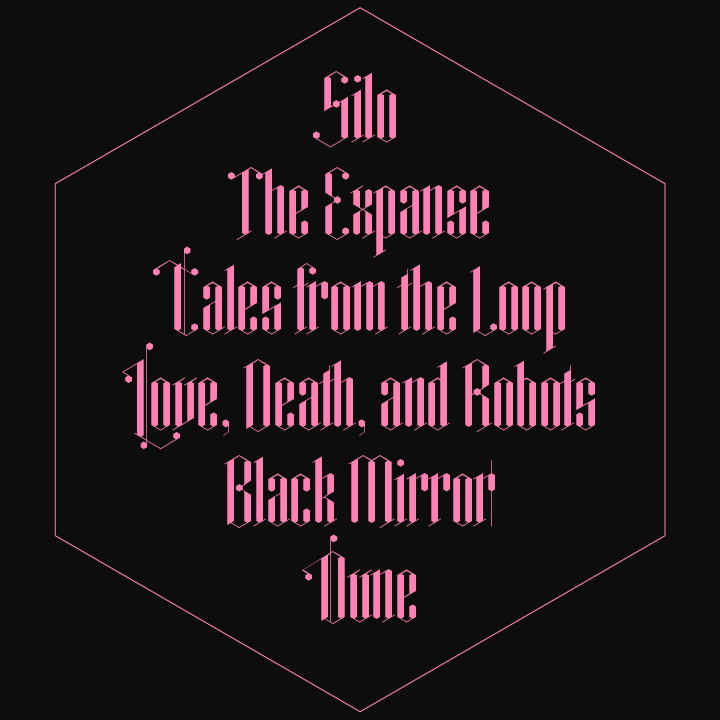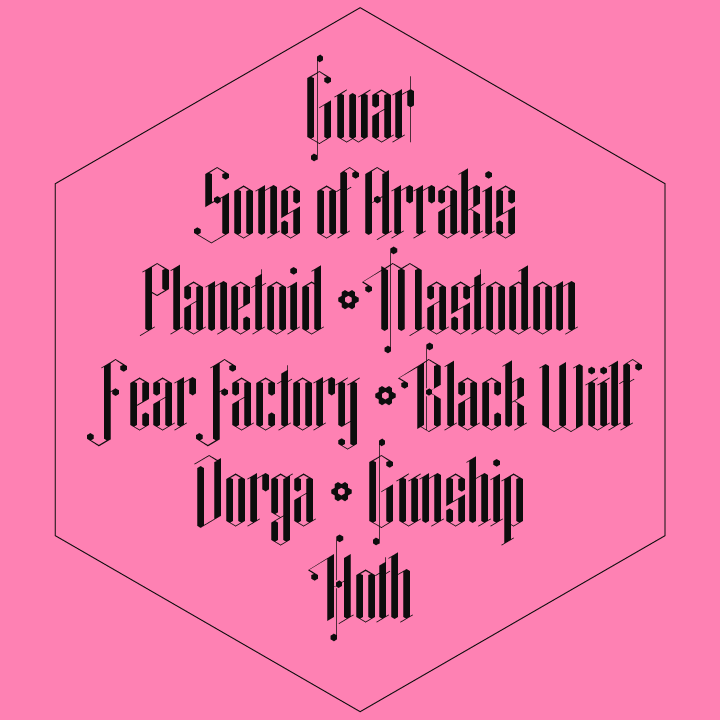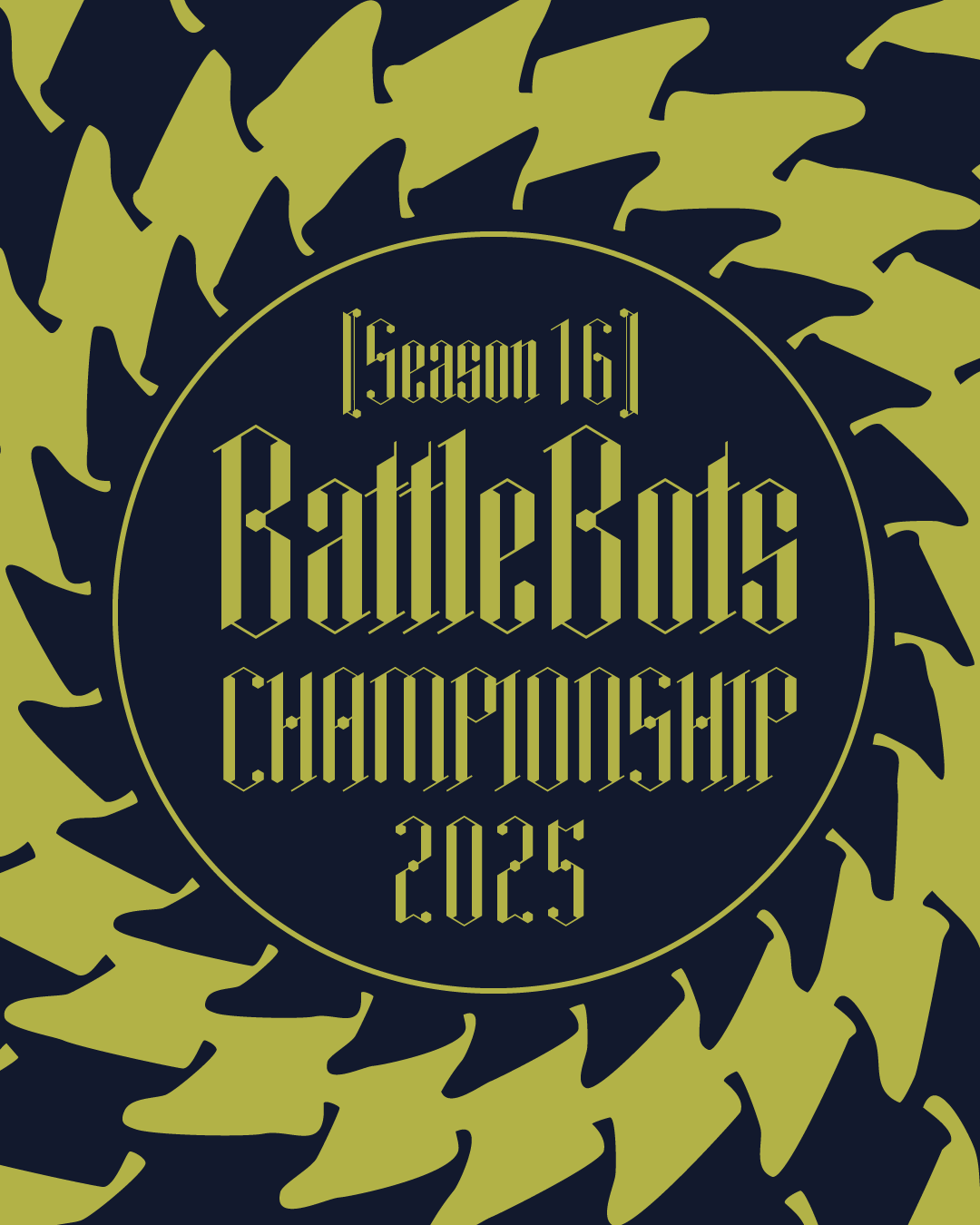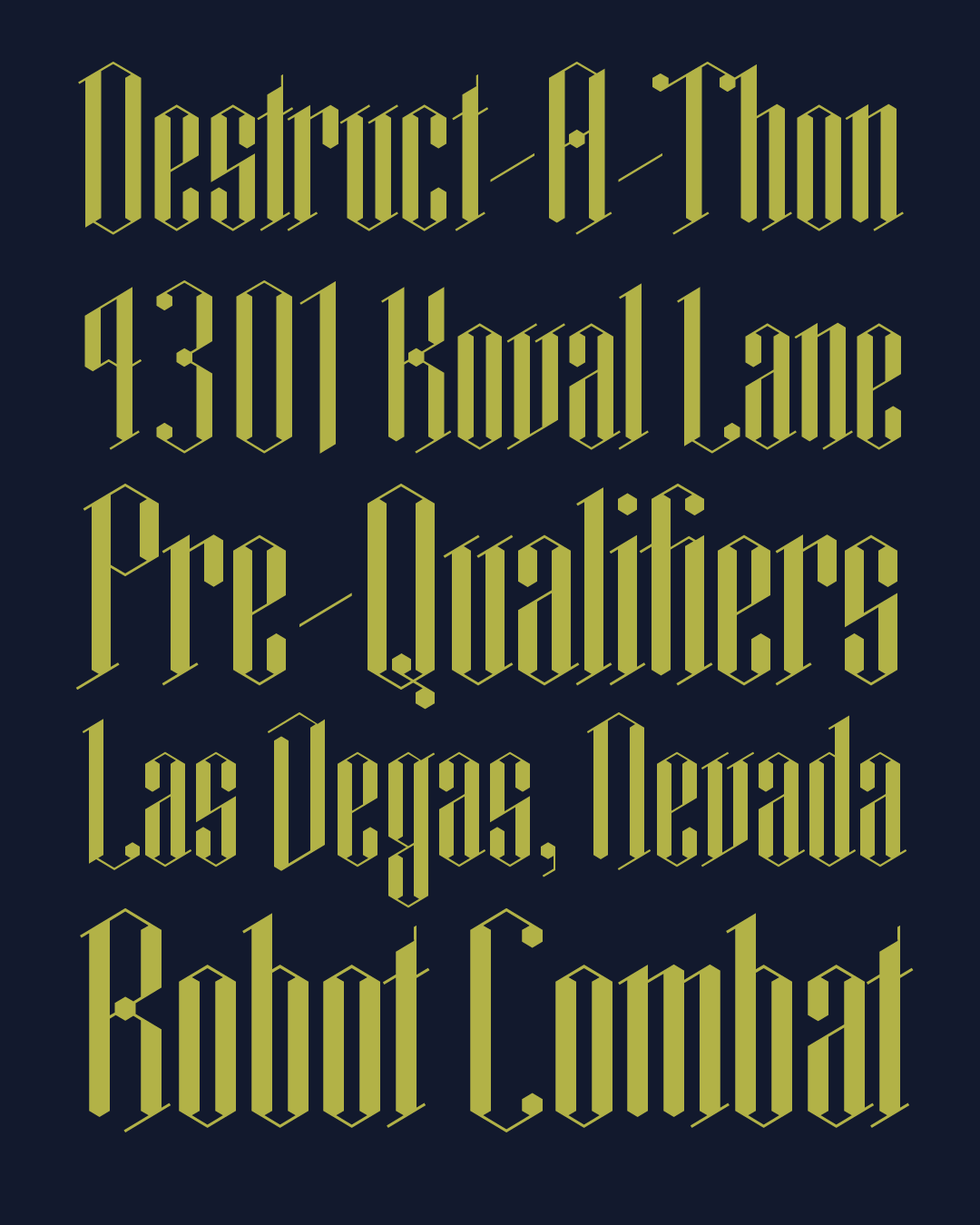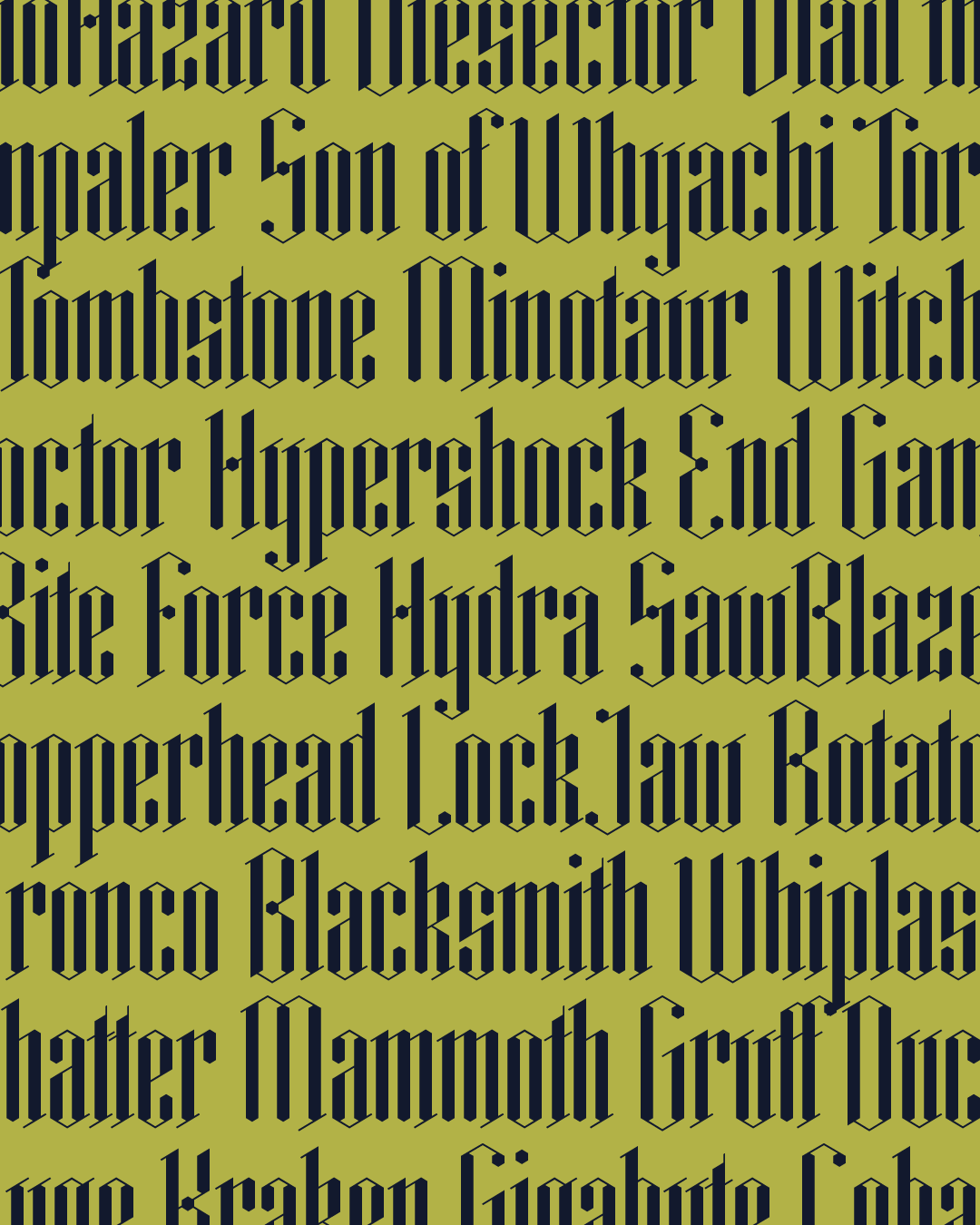
Hexcess™
My God, it’s full of hexagons!
Designed by Delve Withrington
In space, no one can read blackletter.
Hexcess began as a sketch for a sci-fi heavy metal band logo but the project didn’t move forward and the sketch sat in my sketchbook for years. After re-discovering it, I realized how much I still wanted to explore these letterforms and set about making an entire typeface out of it.
Design-wise, this is an experiment using hexagons and novel forms derived from them to construct a condensed blackletter on a grid — a similar approach to that of Albrecht Dürer’s Constructed Textura of 1538. Several styles of blackletter were referenced to find forms that fit into the constraints of the design grid in a pleasing manner and with enough differentiation between glyphs (e.g. U-V) that would otherwise be too similar. In addition, Hexcess has high contrast, strong verticals, and swash glyphs, which altogether place this design light-years inside the display fonts quadrant (perhaps it should be named Janeway).
Is it easy to read? Um, no. In the grand tradition of heavy metal logos, readability wasn’t a high priority, but Hexcess is fun and looks pretty rad. 🤘
Use Hexcess for posters, album covers (please, somebody use it on an album cover), book titles, zines, and legal fine print.
Additional features include: Localized Forms, Fractions, Ordinals, Case-Sensitive Forms, Discretionary Ligatures, Slashed Zero, and Contextual Alternates.